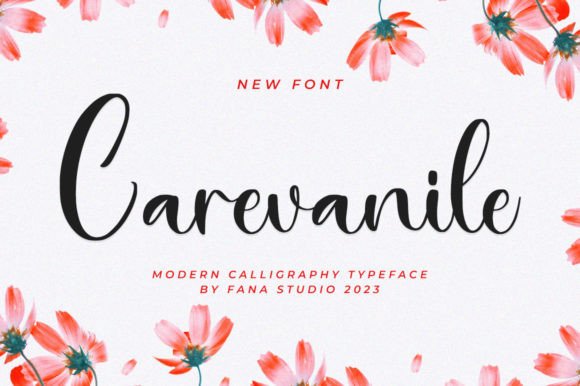
Journey into the world of elegance and sophistication with Carevanile Script, a mesmerizing font that will transform your creative visions into reality. This exquisite script font, meticulously crafted by the talented hands at Fanastudio, embodies the essence of timeless beauty and modern flair.
Carevanile Script is not just a font; it's an experience. Its graceful curves and delicate swashes lend an air of sophistication and charm to any project, whether it's a personal letter, an elegant invitation, or a captivating brand logo. With its timeless appeal, Carevanile Script effortlessly elevates your designs to new heights of artistry.
Immerse yourself in a world of endless possibilities with Carevanile Script. Its versatility knows no bounds, seamlessly adapting to a myriad of creative endeavors. Craft breathtaking wedding invitations that exude romance and elegance, design enchanting social media posts that capture attention, or create stunning product packaging that leaves a lasting impression. The only limit is your imagination.
Unleash your inner artist and let Carevanile Script guide you on a creative adventure. Its intuitive design makes it a joy to use, allowing you to effortlessly add a touch of magic to your projects. Whether you're a seasoned designer or just starting your creative journey, Carevanile Script is the perfect companion for bringing your visions to life.
Don't settle for ordinary fonts that blend into the background. Embrace the allure of Carevanile Script and watch as your designs transform into captivating masterpieces. Its enchanting charm will leave an indelible mark on your audience, ensuring that your message is not just heard, but felt.